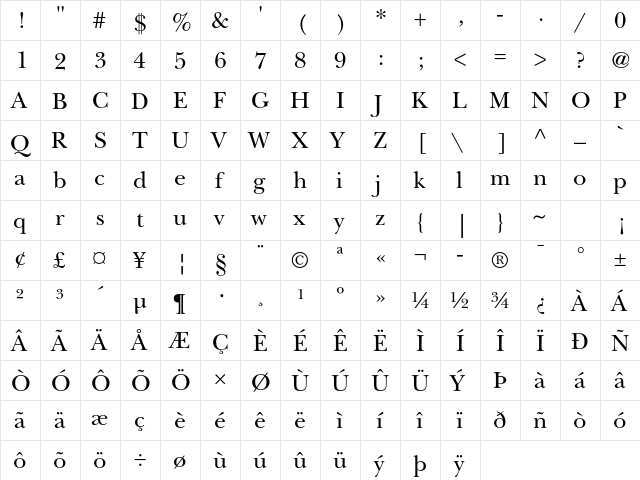
ITC New Baskerville Std Roman
| Designer | George W. Jones |
Design Context for ITC New Baskerville Std Typeface
ITC New Baskerville Std takes a measured approach to typography — its balanced proportions and neutral character make it a reliable workhorse for both digital and print work.